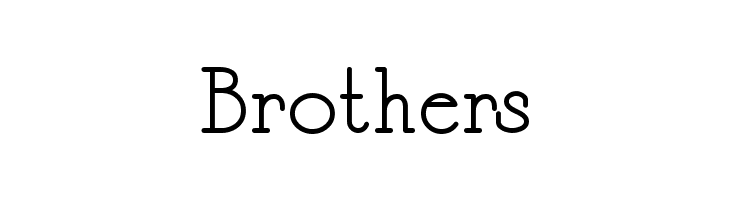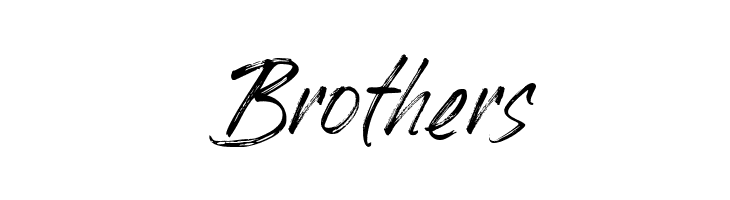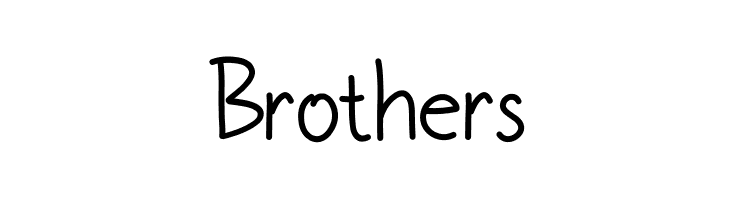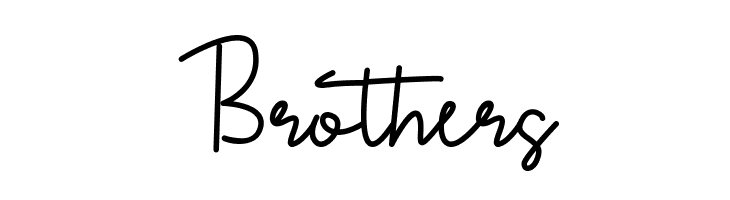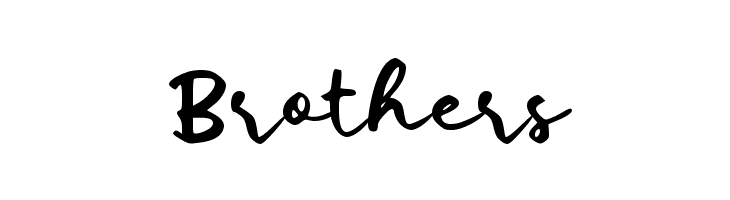
A bold, cursive script font with a flowing, handwritten style.
A playful, casual handwritten font with flowing strokes and a whimsical touch.
A playful, vintage-inspired font with medium contrast and whimsical lowercase letters.
A playful, handwritten font with smooth curves and a casual style.
A bold, expressive handwritten font with dynamic, fluid strokes and a brush-like texture.